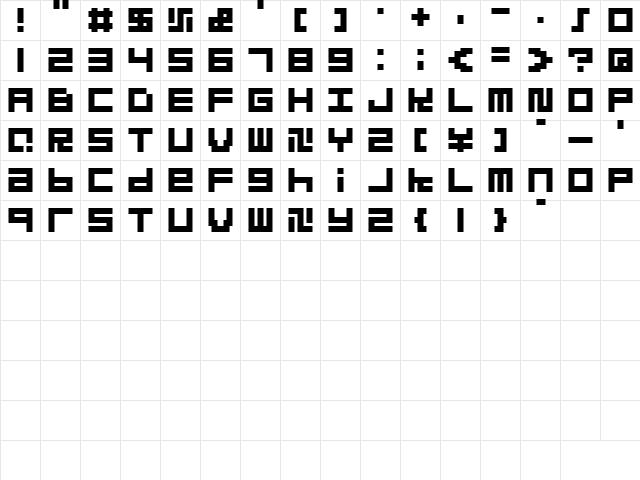
Quadrats Regular
Design Context for Quadrats Typeface
Quadrats takes a measured approach to typography — its balanced proportions and neutral character make it a reliable workhorse for both digital and print work.